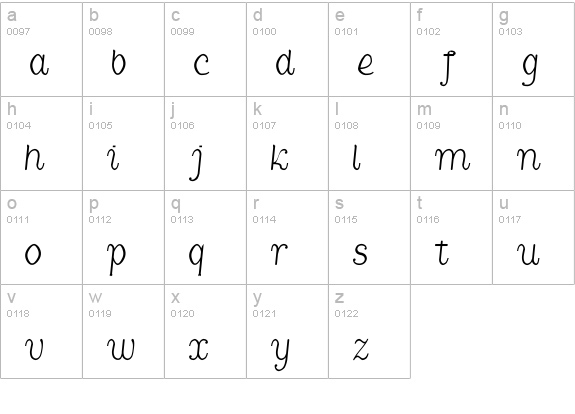
CM_Funny Italic is a distinctive, italic variant in the CM_Funny typeface family \xE2\x80\x94 well suited to design and typography projects.
Introducing CM_Funny Italic font, a playful and whimsical typeface that will add a touch of humor to your projects. This fun and quirky font is perfect for creating eye-catching headlines, posters, greeting cards, and more. Its unique italic style gives a dynamic and energetic feel to your designs. Best of all, CM_Funny Italic font is available for free download at FontsMarket.com. So go ahead and unleash your creativity with this delightful font that is sure to bring a smile to your audience's faces. Let your imagination run wild with CM_Funny Italic font!